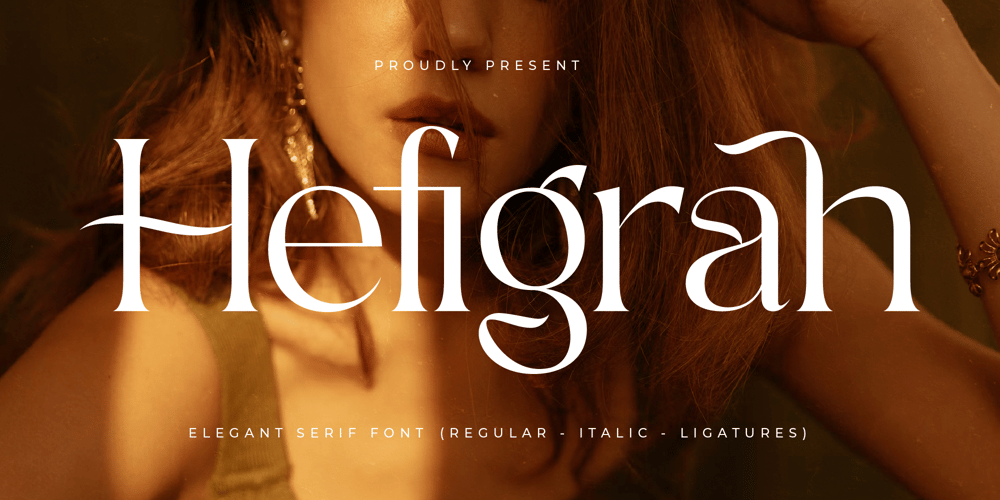
Hefigrah Font Family was designed by Heru Utama Putra and published by Letterena Studios. Hefigrah contains 2 styles and family package options. Hefigrah is a serif modern and classic typeface that has its own unique style & modern look. This typeface is perfect for an elegant & luxury logo, book or movie title design, fashion brand, magazine, clothes, lettering, quotes, and so much more.